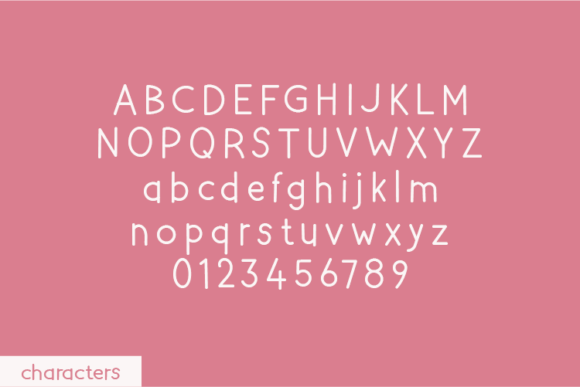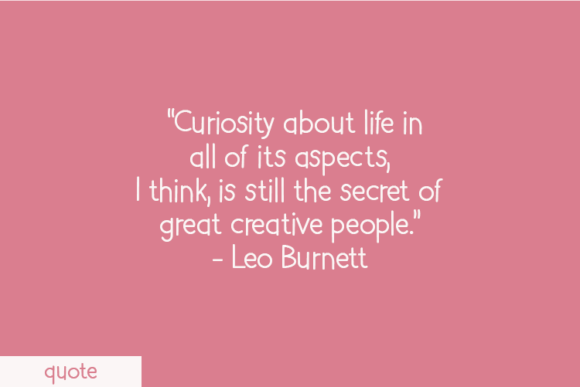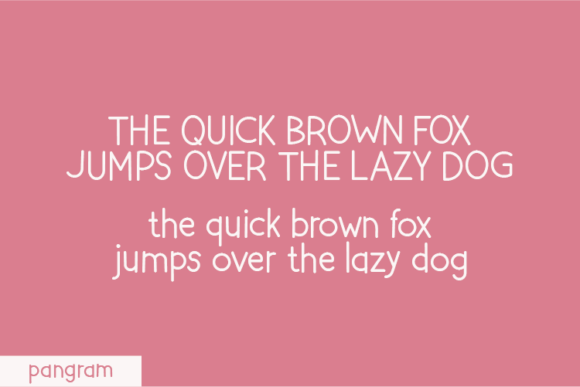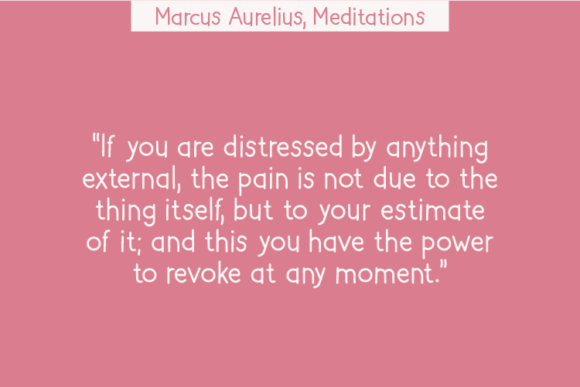
The Flattering Font: A Unique and Versatile Handwritten Style
As a designer or crafter, you’re always on the lookout for fonts that can add a personal touch to your projects. A font that can convey emotion, whimsy, and character can make all the difference in creating a design that stands out. That’s where the Flattering font comes in – a natural handwritten font that’s as unique as it is versatile.
What Makes Flattering Font So Special?
The Flattering font is a one-of-a-kind handwritten font that boasts a distinctive feature: not a single node in each character’s indentation has been altered. This means that the font retains a natural, organic feel that’s both interesting and authentic. The result is a font that’s perfect for adding a touch of personality to your designs, whether you’re creating quotes, notes, t-shirts, or any other product design.
Key Features of Flattering Font
- Natural Handwritten Style: The Flattering font is a genuine handwritten font that exudes warmth and character.
- Unique Indentation: The font’s distinctive indentation feature sets it apart from other fonts, making it a standout choice for designers.
- Versatile: Flattering font is perfect for a wide range of design projects, from quotes and notes to t-shirts and product design.
- No Alterations: The font’s natural, unaltered nodes ensure that it retains its organic feel and authenticity.
Why Designers and Crafters Love Flattering Font
So, why do designers and crafters love the Flattering font? For starters, its unique and natural style adds a touch of personality to any design project. The font’s versatility also makes it a go-to choice for a wide range of applications, from digital designs to print materials. Additionally, the font’s handmade feel resonates with audiences and can help create an emotional connection with your design.
How to Use Flattering Font in Your Designs
Using the Flattering font in your designs is easy! Here are a few ideas to get you started:
- Quotes and Notes: Add a touch of elegance and sophistication to your quotes and notes with the Flattering font.
- T-Shirts and Apparel: Create eye-catching and unique designs for t-shirts, hoodies, and other apparel with the Flattering font.
- Product Design: Use the Flattering font to add a personal touch to your product designs, such as packaging, labels, and branding materials.
- Digital Designs: Incorporate the Flattering font into your digital designs, such as social media graphics, blog posts, and email newsletters.
Tips and Tricks for Working with Flattering Font
Here are a few tips and tricks for working with the Flattering font:
- Experiment with Colors: Try pairing the Flattering font with different colors to create a unique and eye-catching design.
- Mix and Match Fonts: Combine the Flattering font with other fonts to create a visually appealing and interesting design.
- Play with Size and Scale: Experiment with different font sizes and scales to add depth and dimension to your design.
The Flattering font is a unique and versatile handwritten font that’s perfect for designers and crafters looking to add a personal touch to their projects. With its natural, organic feel and distinctive indentation feature, this font is sure to stand out in any design. Whether you’re creating quotes, notes, t-shirts, or product designs, the Flattering font is a great choice for adding a touch of personality and whimsy to your work.